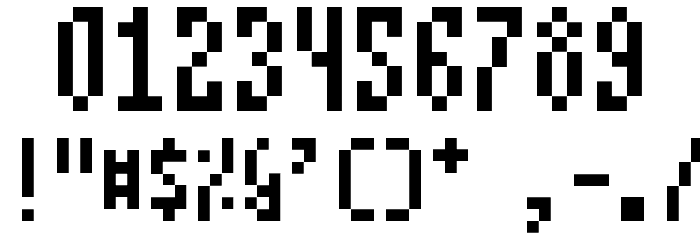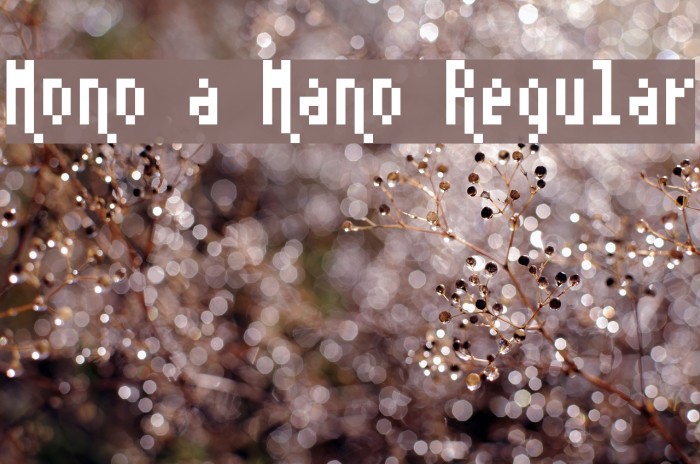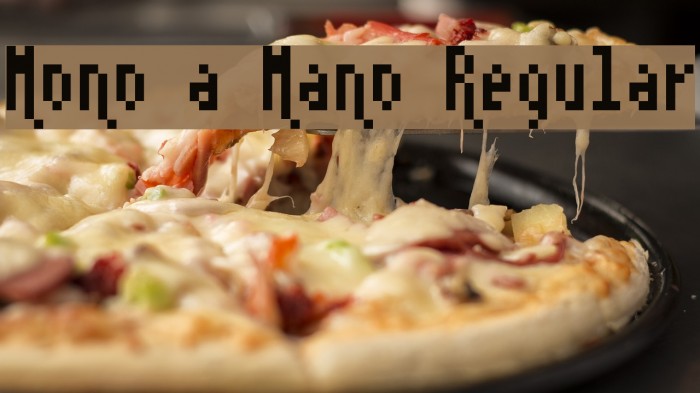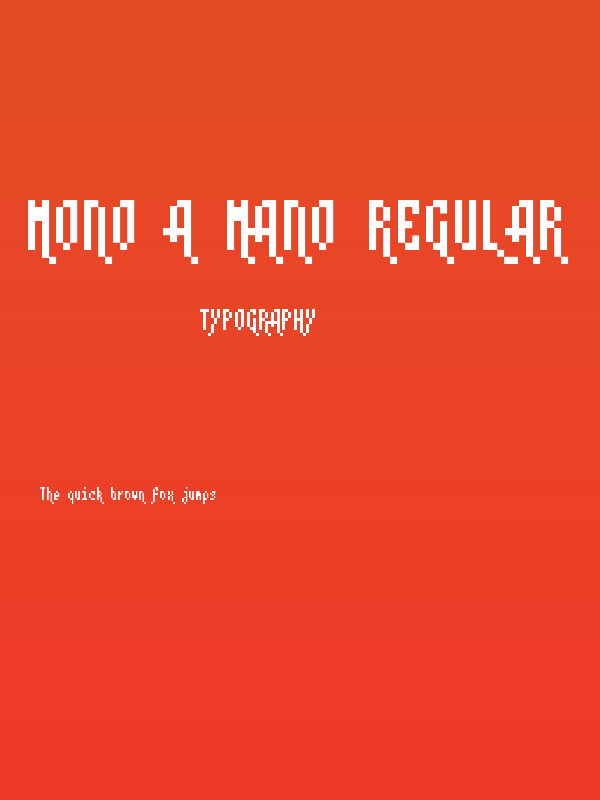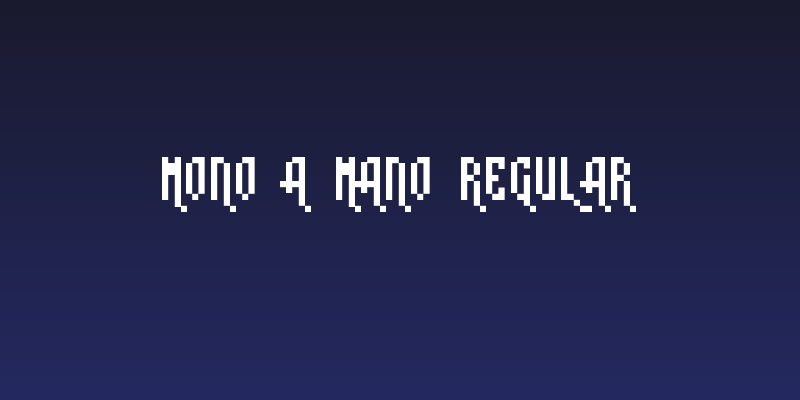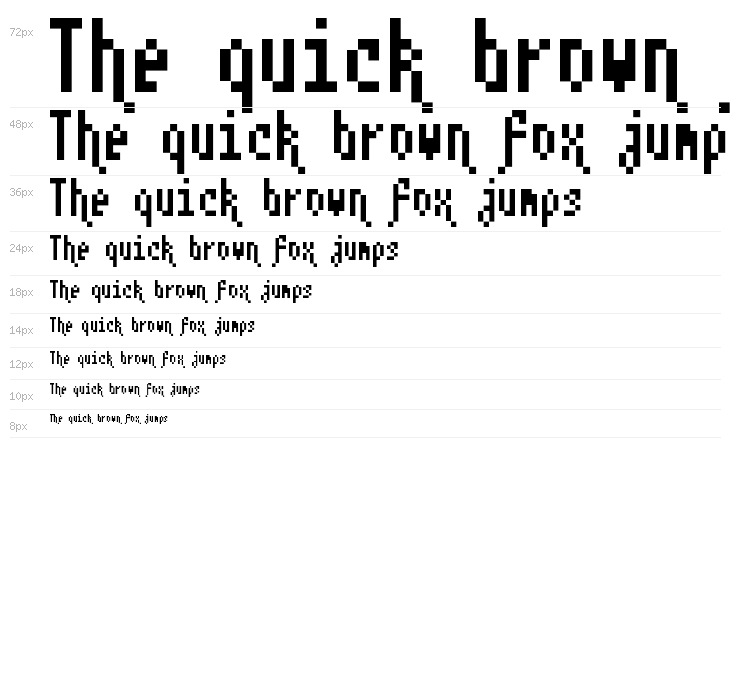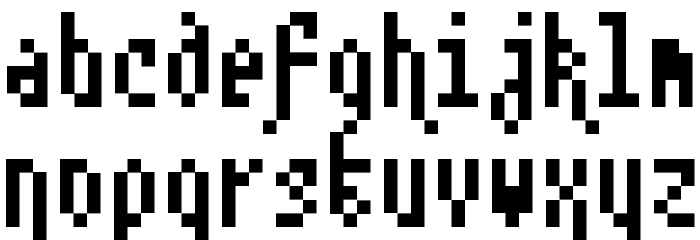
Mono a Mano Regular Font
Mono a Mano Regular Description
This font exhibits a distinct pixelated style reminiscent of early digital or video game typography. Each character is constructed with a blocky, grid-like appearance, giving it a retro, digital aesthetic. The uniformity in character width and height emphasizes its monospaced nature, making it ideal for coding or any application where alignment is crucial. The uppercase and lowercase letters share a similar height, enhancing readability in compact spaces. Numbers and special characters maintain the same pixelated design, ensuring consistency across all glyphs. The font's simplicity and clarity make it suitable for digital interfaces, retro-themed designs, and any project requiring a nostalgic touch.
| Use Case | Coding, Digital interfaces, Retro designs |
| Proposed Projects | Ideal for retro video games, coding environments, digital art projects, and nostalgic graphic designs. |